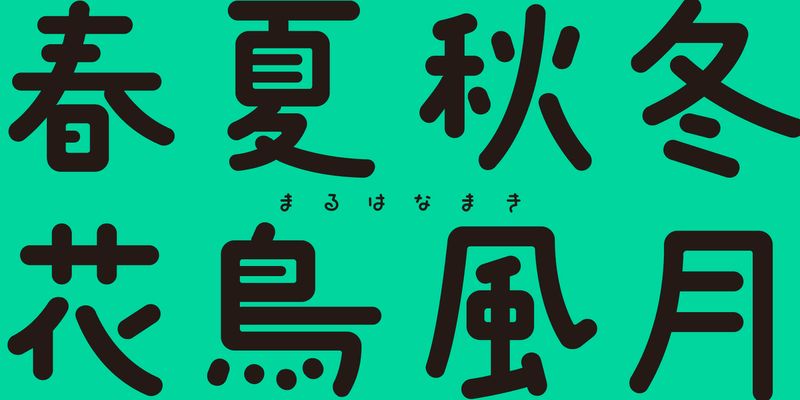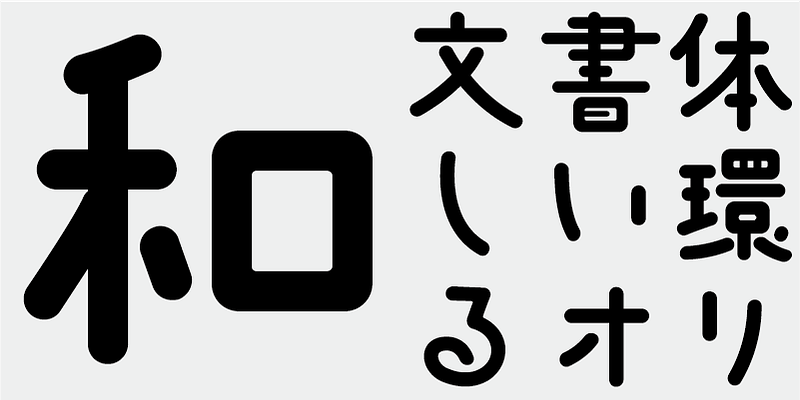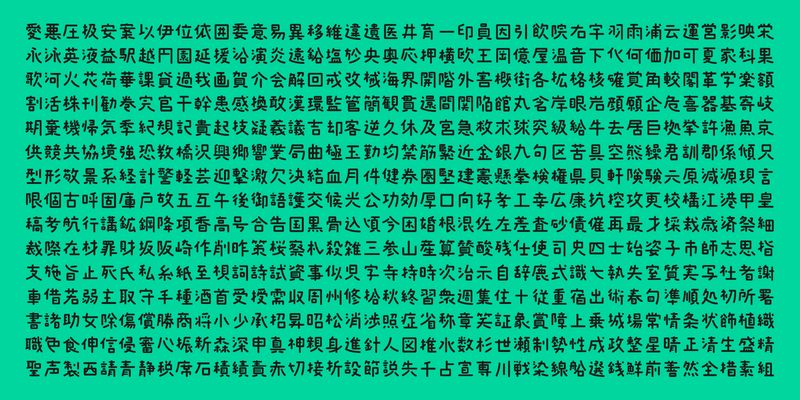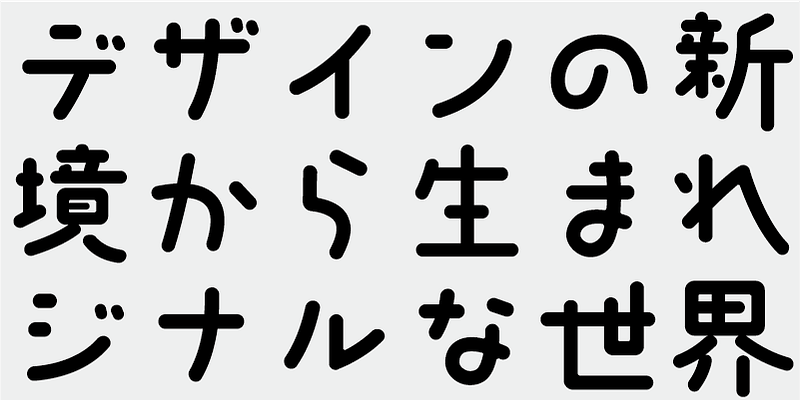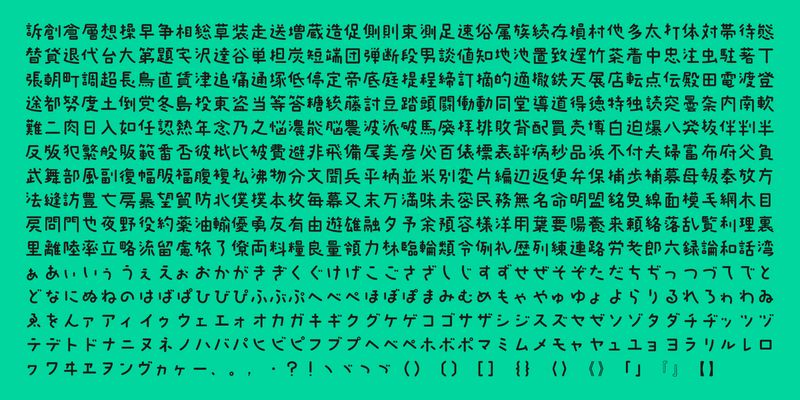
This round-gothic version of Hanamaki is effective for display purposes. The sizes of left and right kanji radicals are intentionally arranged to be slightly unbalanced.